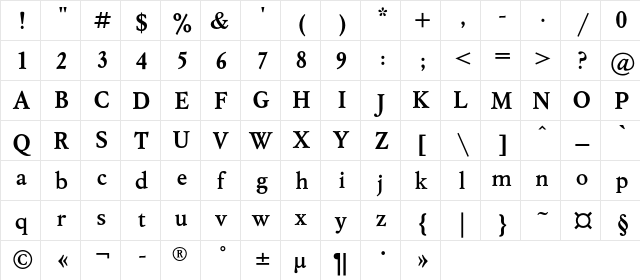
MyslC Bold Font Preview
MyslC Bold
Design Context for MyslC Typeface
MyslC takes a measured approach to typography — its balanced proportions and neutral character make it a reliable workhorse for both digital and print work. The heavy weight commands attention and anchors typographic hierarchies.